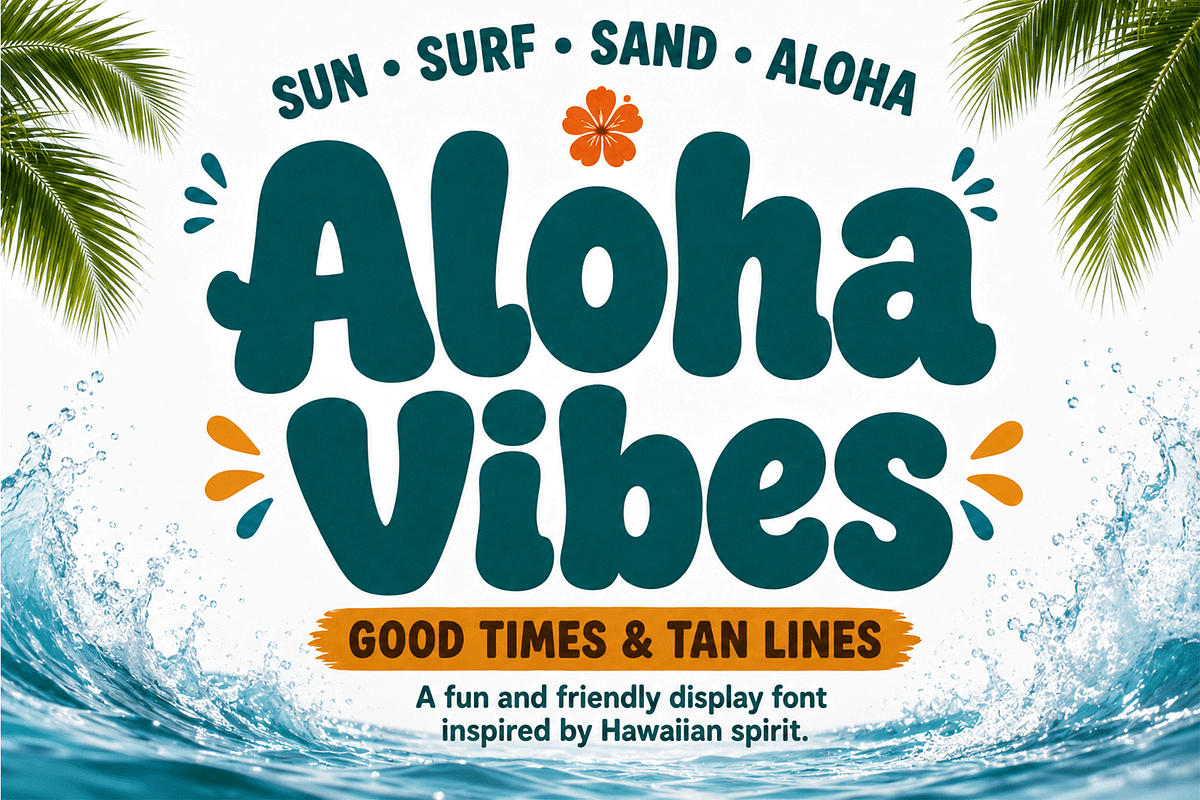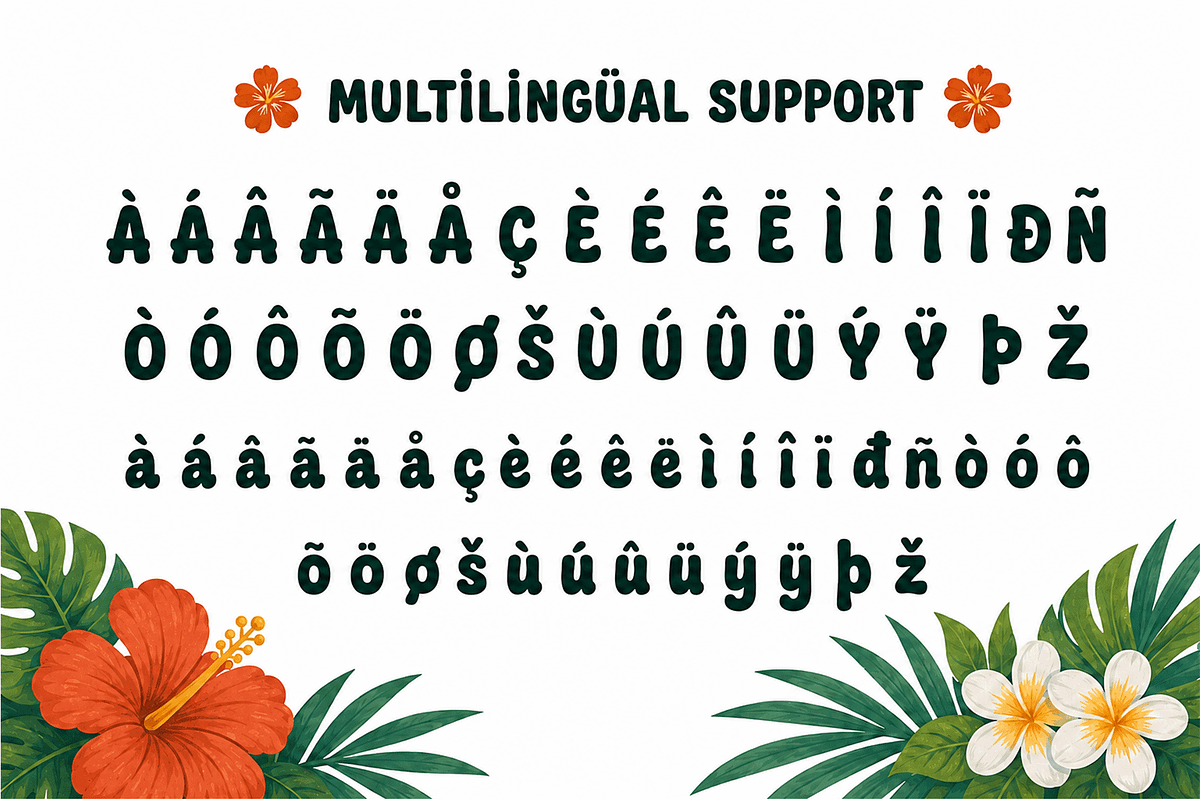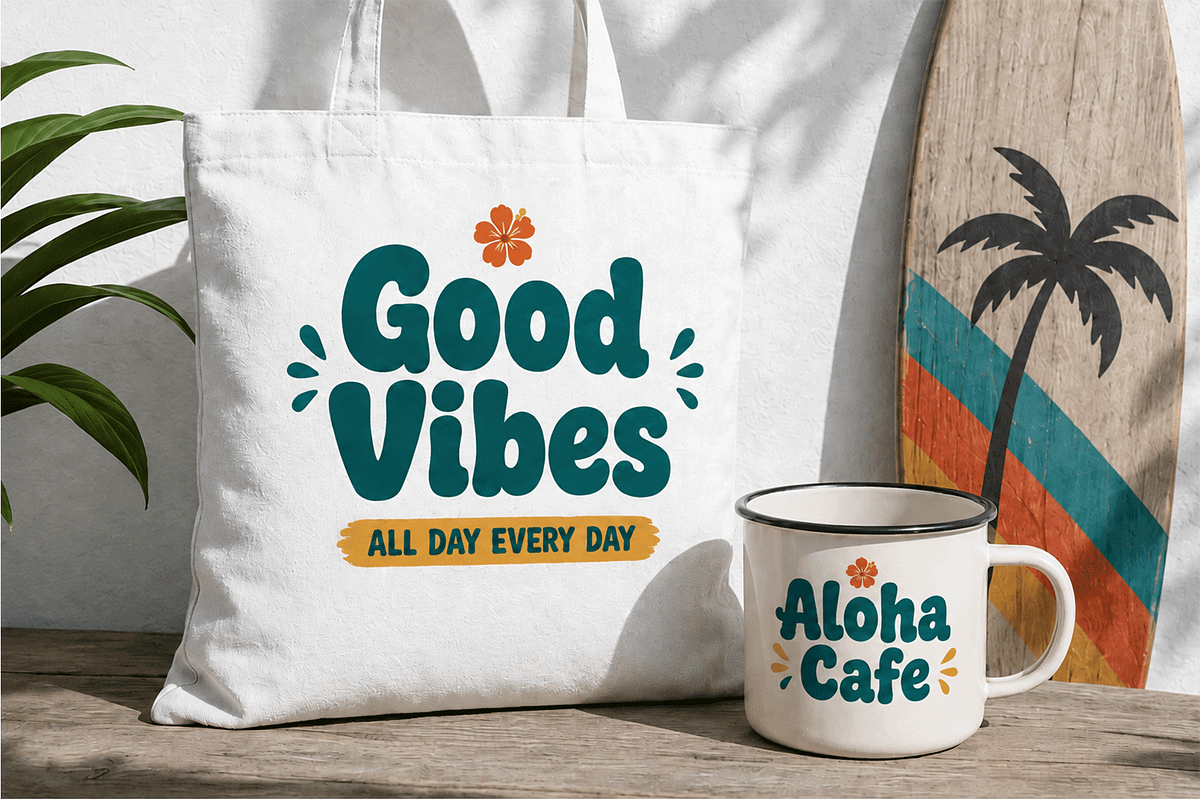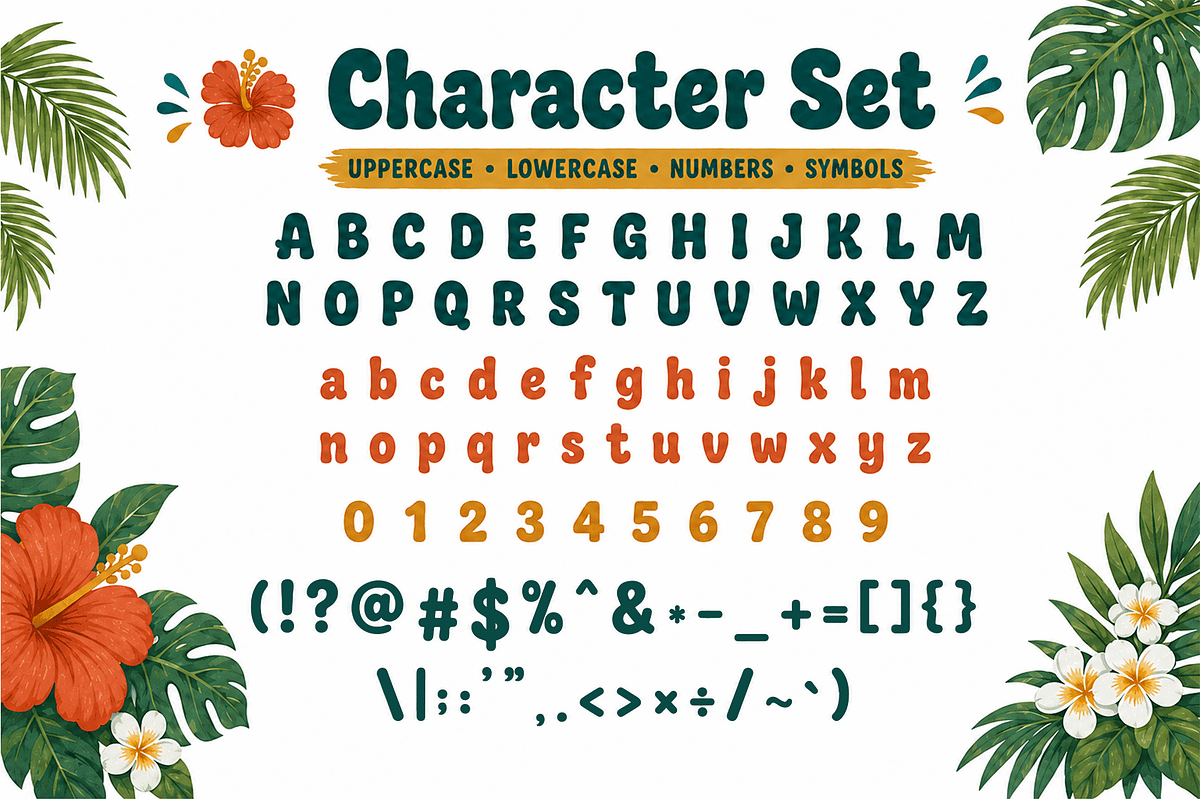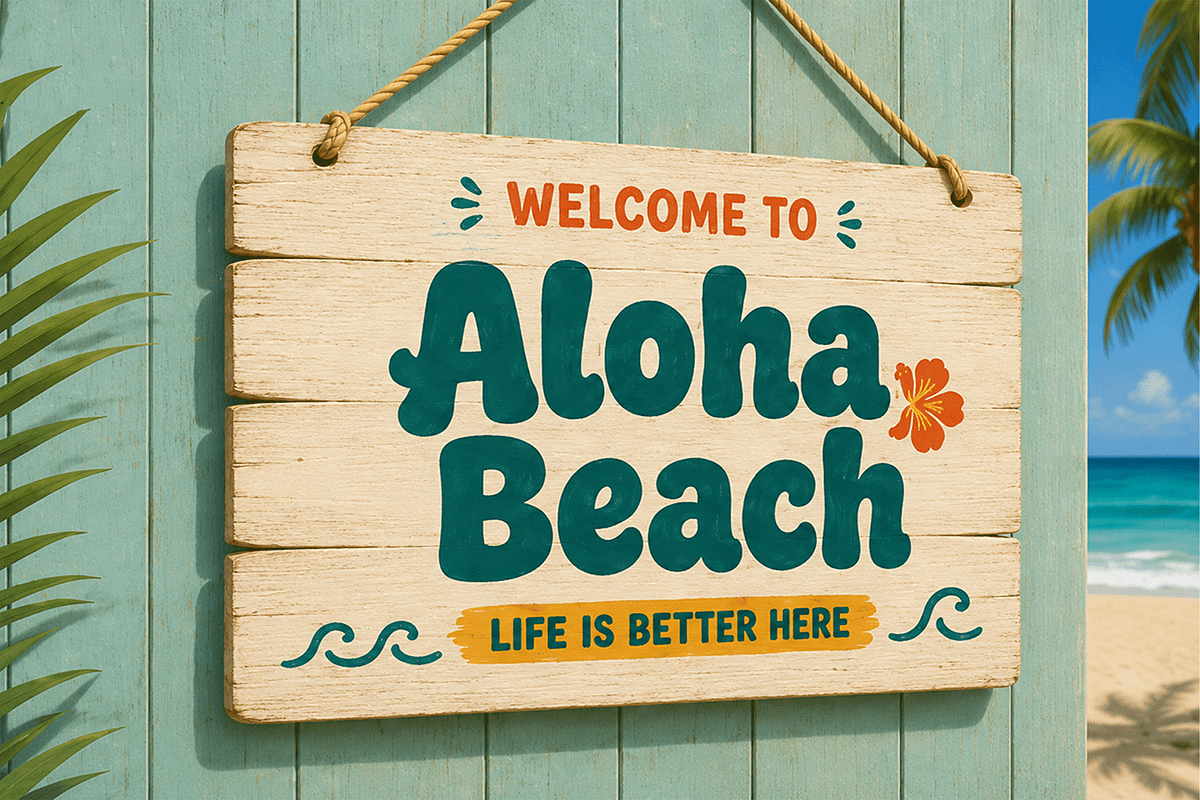
Aloha Vibes - Fun Hawaiian Display
Aloha Vibes - Fun Hawaiian Display Font
Meet "Aloha Vibes," a fun Hawaiian inspired display font filled with tropical charm, playful curves, and a warm vacation-ready personality. Its bold rounded letterforms create a friendly and energetic look, making every word feel cheerful, relaxed, and full of island spirit.
Aloha Vibes is ideal for beach branding, surf posters, tropical packaging, summer promotions, restaurant menus, travel graphics, T-shirts, stickers, social media content, event invitations, product labels, children’s projects, and vacation-themed merchandise. It works especially well for headlines, logos, and large display compositions where its playful personality can fully stand out.